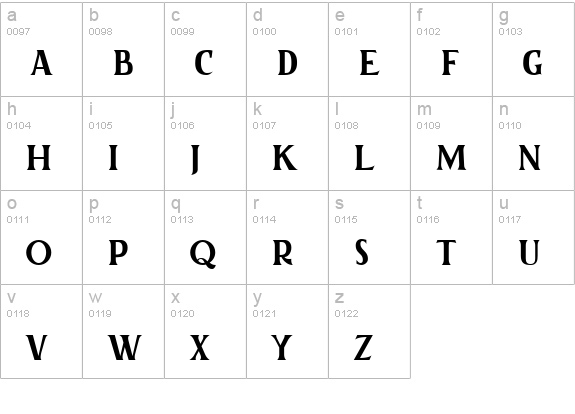
Kertayasa Font Details
Kertayasa font is a stunning typeface that exudes elegance and sophistication. With its clean lines and delicate curves, it adds a touch of refinement to any design project. This font is perfect for logos, branding materials, invitations, and more. What sets Kertayasa font apart is that it is not only visually appealing, but it is also free! That's right, you can download this exquisite font for free at FontsMarket.com. It is a true gem for designers and creatives who want to add a touch of class to their work without breaking the bank. The versatility of Kertayasa font is another reason why it is a must-have in your font collection. Whether you're working on a wedding invitation, a magazine layout, or a website design, this font can effortlessly adapt to any style or theme. Its timeless appeal ensures that your designs will never go out of fashion. But the beauty of Kertayasa font doesn't end there. It also boasts a wide range of characters, including uppercase letters, lowercase letters, numbers, punctuation marks, and special symbols. This extensive character set allows you to create eye-catching typography that stands out from the crowd. With Kertayasa font, the possibilities are endless. Unleash your creativity and let this font elevate your designs to new heights. It's time to make a statement with your typography, and Kertayasa font is here to help you do just that. Don't miss out on this incredible font – download it for free at FontsMarket.com and start creating stunning designs today.